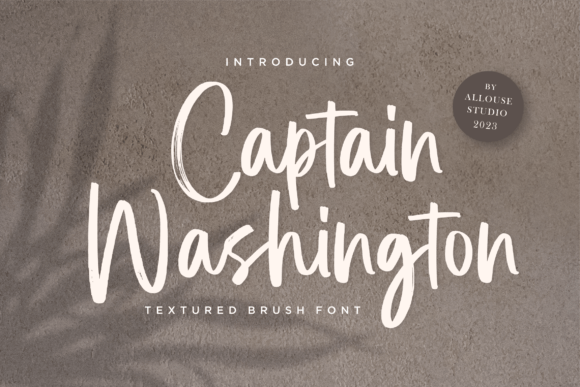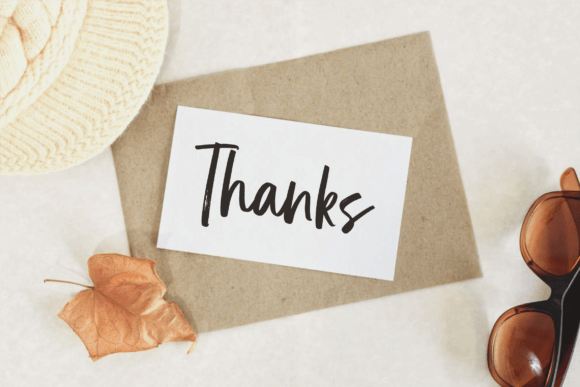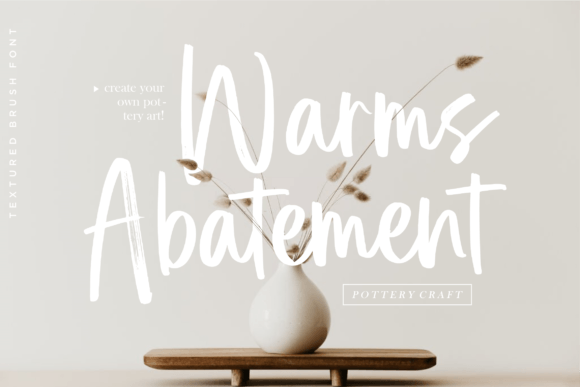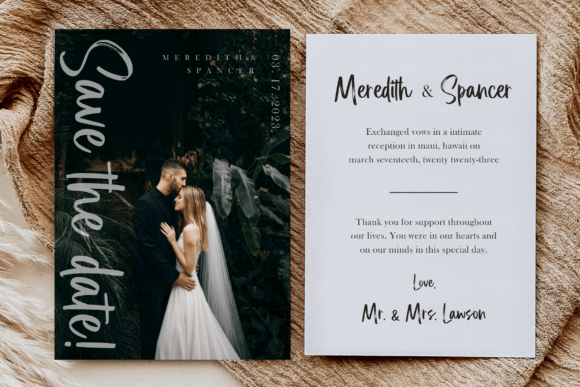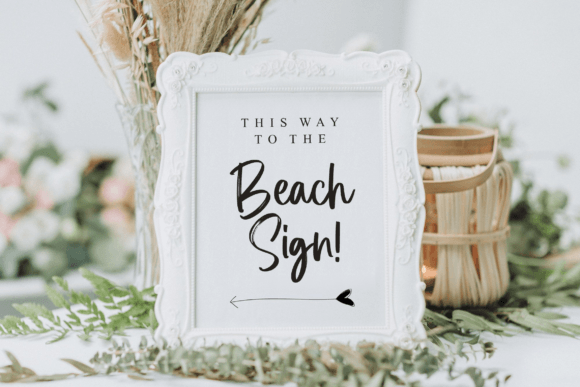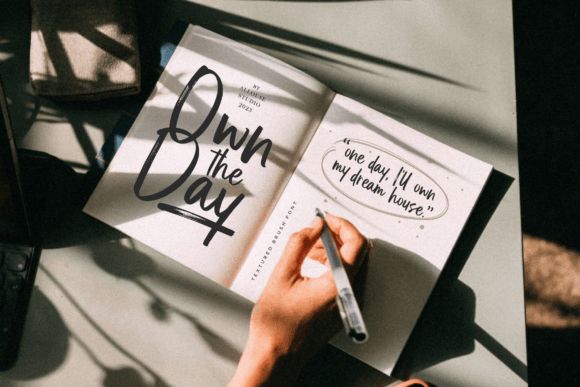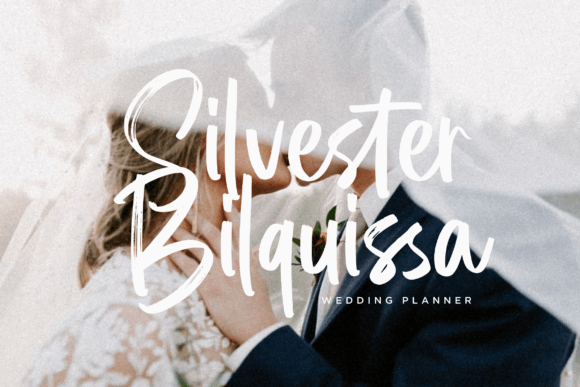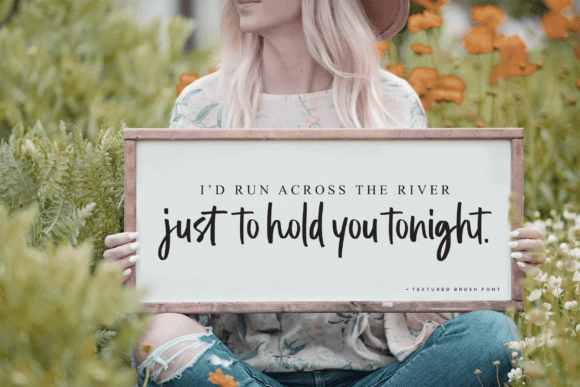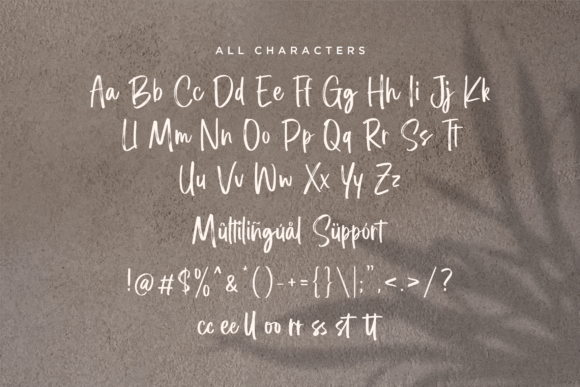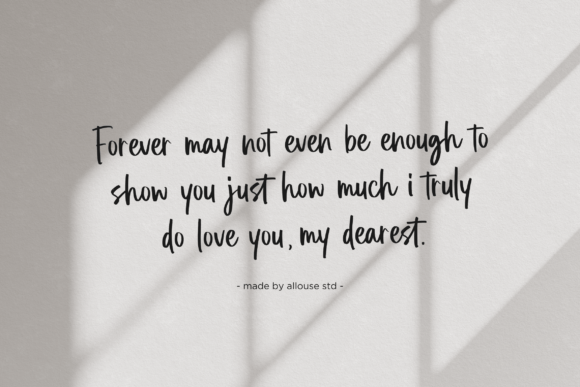
Captain Washington Font
A Modern and Trendy Handwritten Script
Captain Washington is a fresh handwritten font that combines modern style with a flowing, natural feel. Each letter has smooth curves and well-balanced shapes that look polished and professional. The clean, contemporary style makes it perfect for projects that need to feel current, stylish, and authentic.
Whether you’re designing for professional brands or personal projects, Captain Washington helps your text stand out with a unique character.
Captain Washington is a versatile font you can use in countless ways. It’s perfect for logos and branding materials that need a personal touch. The stylish flow works beautifully on business cards, product packaging, and website headers.
This font also shines in wedding invitations, save-the-date cards, and event signage. The modern script style feels elegant without being too formal, making it ideal for celebrations and special occasions.
Captain Washington is great for social media graphics and digital marketing content. The friendly, handwritten style helps your posts feel approachable and engaging.
You can also use it for quotes, posters, and greeting cards. No matter where you apply it, this font brings a fresh, contemporary feel.
The font includes uppercase and lowercase letters, numbers, and punctuation marks. Ligatures are also included to help your text flow naturally and look cohesive.
Even with its flowing handwritten look, Captain Washington remains clear and easy to read at any size. The consistent spacing keeps your text neat, whether you’re working on large headlines or smaller labels.
Many designers like pairing Captain Washington with a clean sans-serif font to create contrast. Use Captain Washington for titles and the sans-serif for supporting text. This combination guides the reader’s eye and makes your layouts look balanced and modern.
To bring out Captain Washington’s modern charm, use light backgrounds and subtle color palettes. Soft shades like ivory, blush, and warm gray help the smooth strokes stand out without overwhelming the design.
For wedding stationery, consider adding floral details or watercolor textures to enhance the romantic feel. When designing logos or packaging, keep the layout minimal so the font becomes the star of the project.
Think about the mood you want to create. Captain Washington is perfect for designs that should feel modern, stylish, and personal.
Captain Washington is more than just a trendy script font. It’s a creative tool that transforms simple words into something memorable. Its clean shapes and flowing lines bring personality and elegance to any project.
Adding Captain Washington to your font collection gives you a reliable choice for all types of design work. From branding and weddings to social media and packaging, this font adapts effortlessly to your ideas.